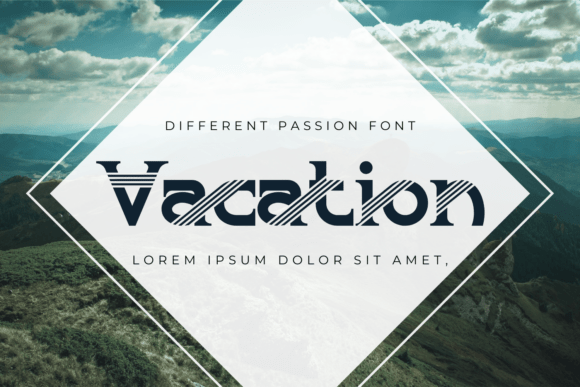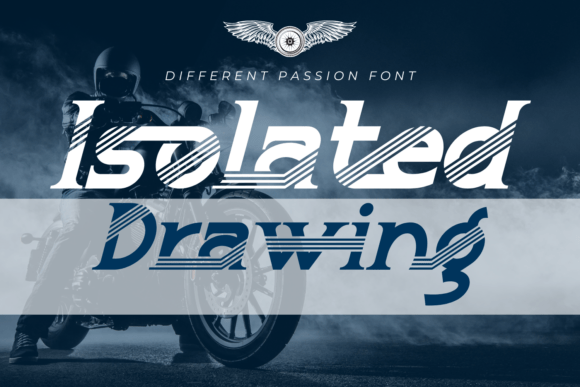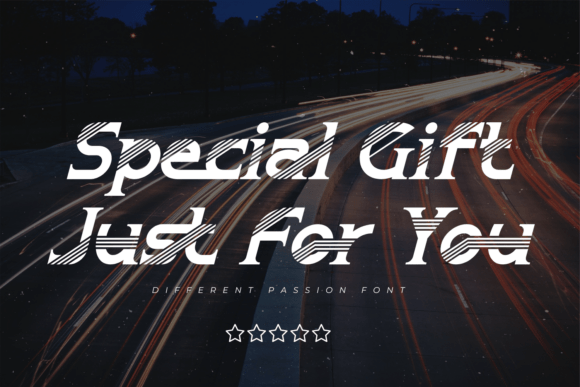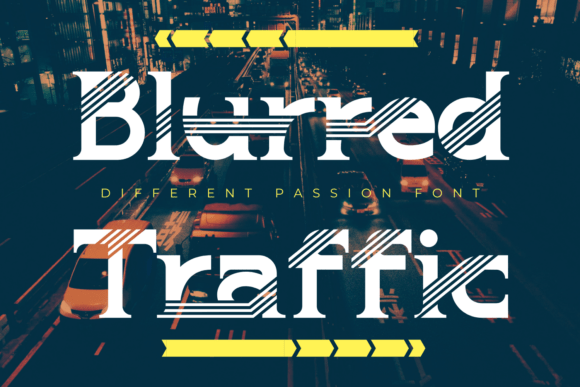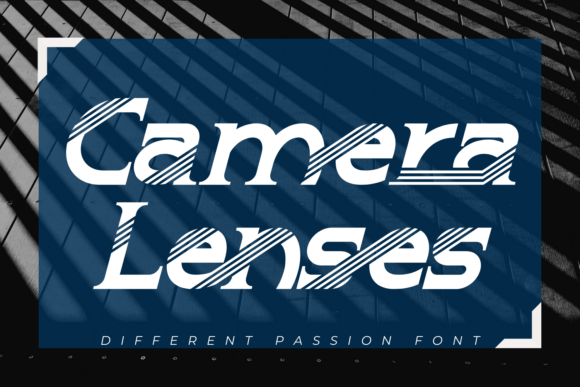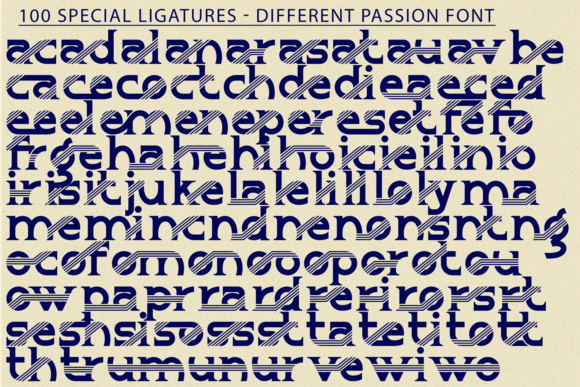
Introduction to Different Passion Font Font
Fonts play a crucial role in design, and the Different Passion Font font is a typeface that brings both character and versatility to any project. Whether you’re working on a branding project, a website, or a print design, the Different Passion Font font offers a unique style that can elevate your work.
Different Passion – Striped Font – Eye-catching lines font designed to captivate with its bold, geometric clean lines.
The font design consists of parallel lines that create a sense of movement and depth, making it ideal for projects that demand attention and contemporary aesthetics Perfectly suited for creating impactful headlines, posters, logos, and branding materials, this font offers a unique blend of sophistication and creativity.
Key Features of Different Passion Font Font
Why Choose Different Passion Font Font?
The Different Passion Font font is more than just a typeface – it’s a design tool that helps you communicate your message with style and clarity. Its unique character set and versatile design make it suitable for a wide range of applications, from elegant invitations to bold headlines.
With its carefully crafted letterforms and balanced proportions, the Different Passion Font font ensures readability and visual appeal across all mediums.
What makes Different Passion Font font special?
The Different Passion Font font stands out with its unique design, exceptional readability, and versatility across various design applications.